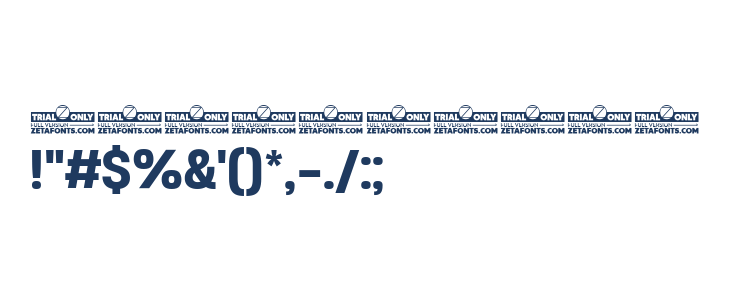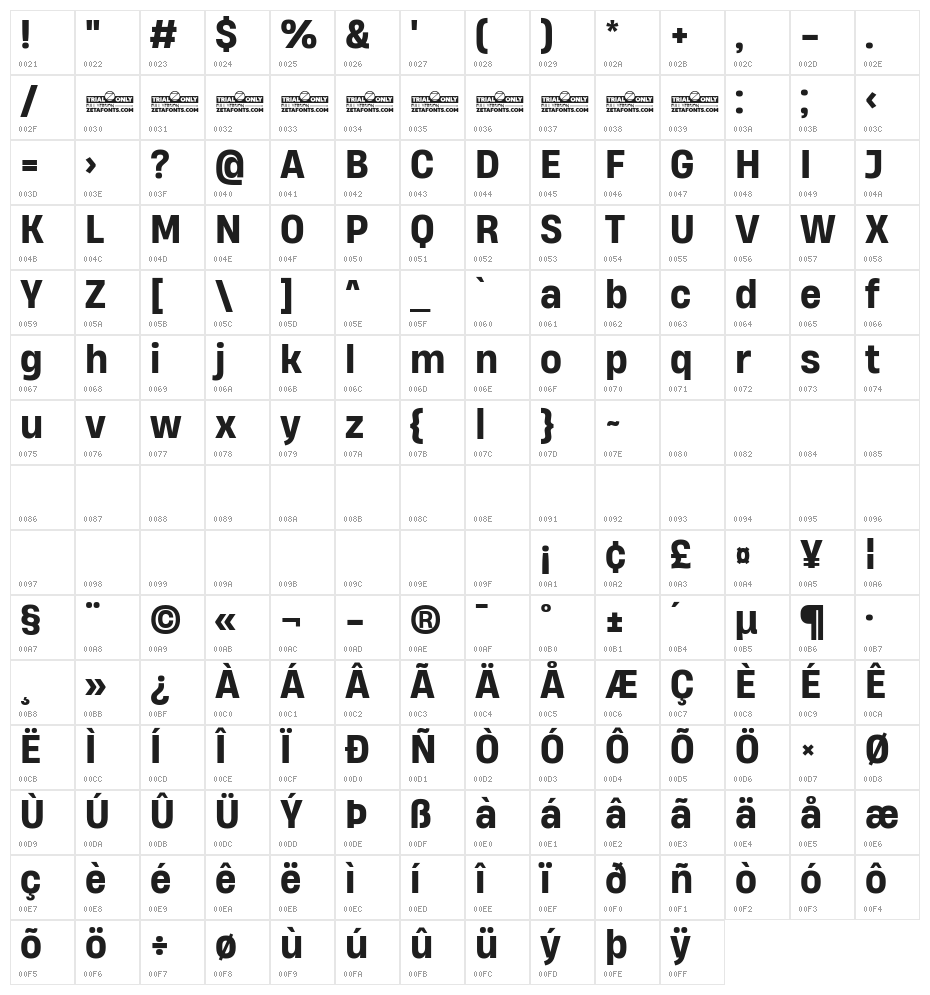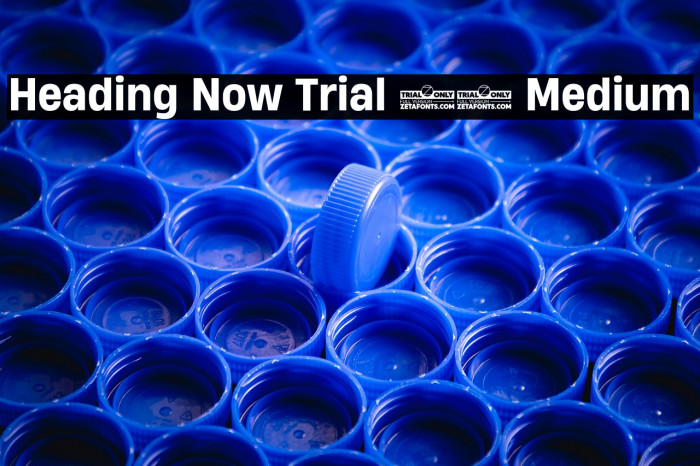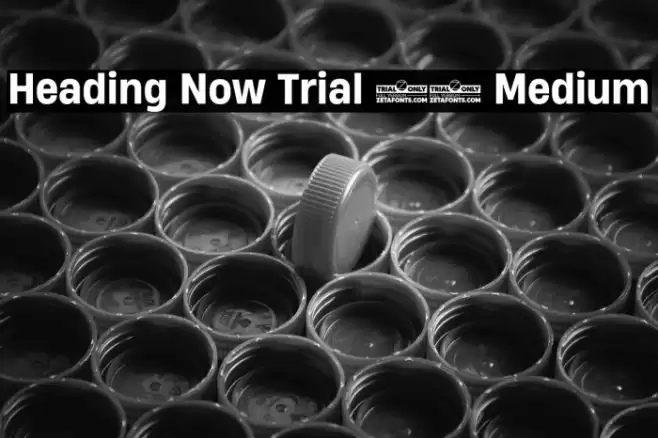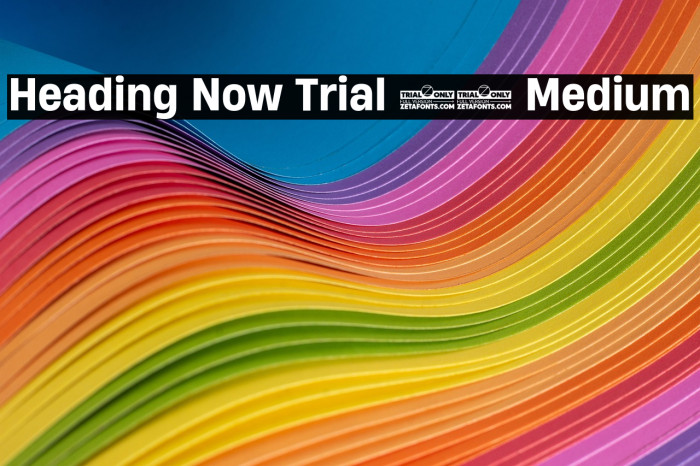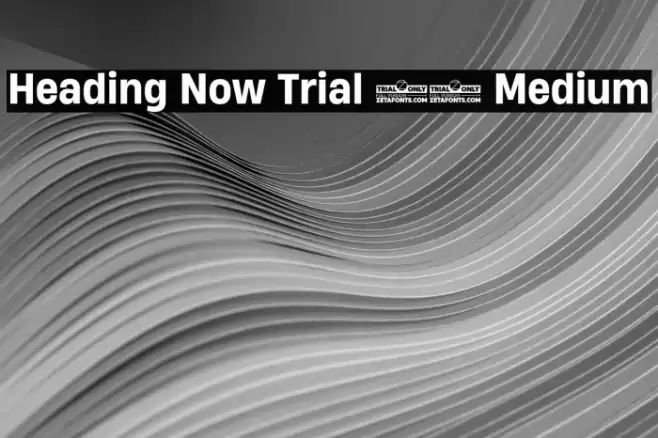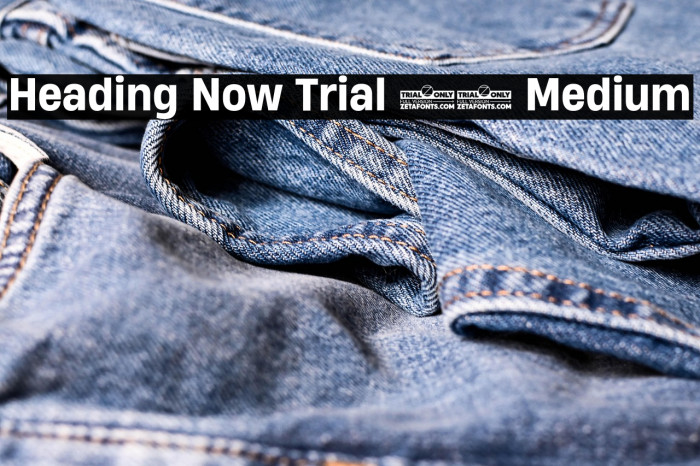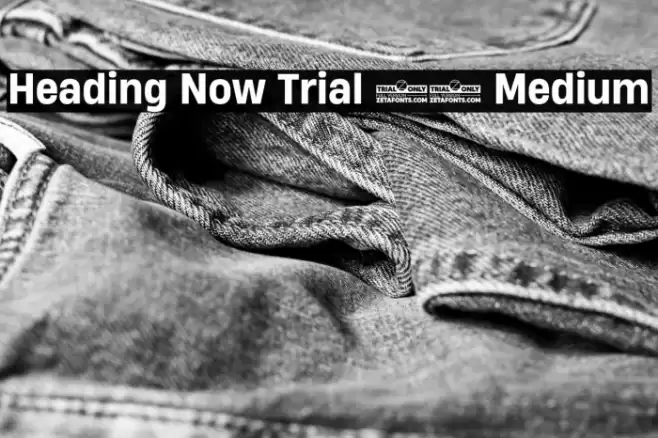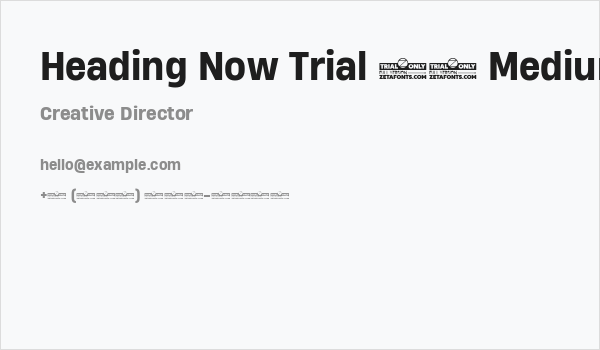
Heading Now Trial 65 Medium Font
Heading Now Trial 65 Medium Description
This font features a bold and robust design with clean lines and a modern aesthetic. The uppercase and lowercase letters are well-proportioned, offering excellent readability. The characters are evenly spaced, contributing to a balanced and harmonious appearance. The numerals and special characters maintain the same boldness, ensuring consistency across all text elements. This font is versatile, suitable for various applications where clarity and impact are essential.
| Use Case | Headlines, Logos, Advertising |
| Proposed Projects | Ideal for branding, advertising, headlines, and digital content where a strong visual impact is needed. |